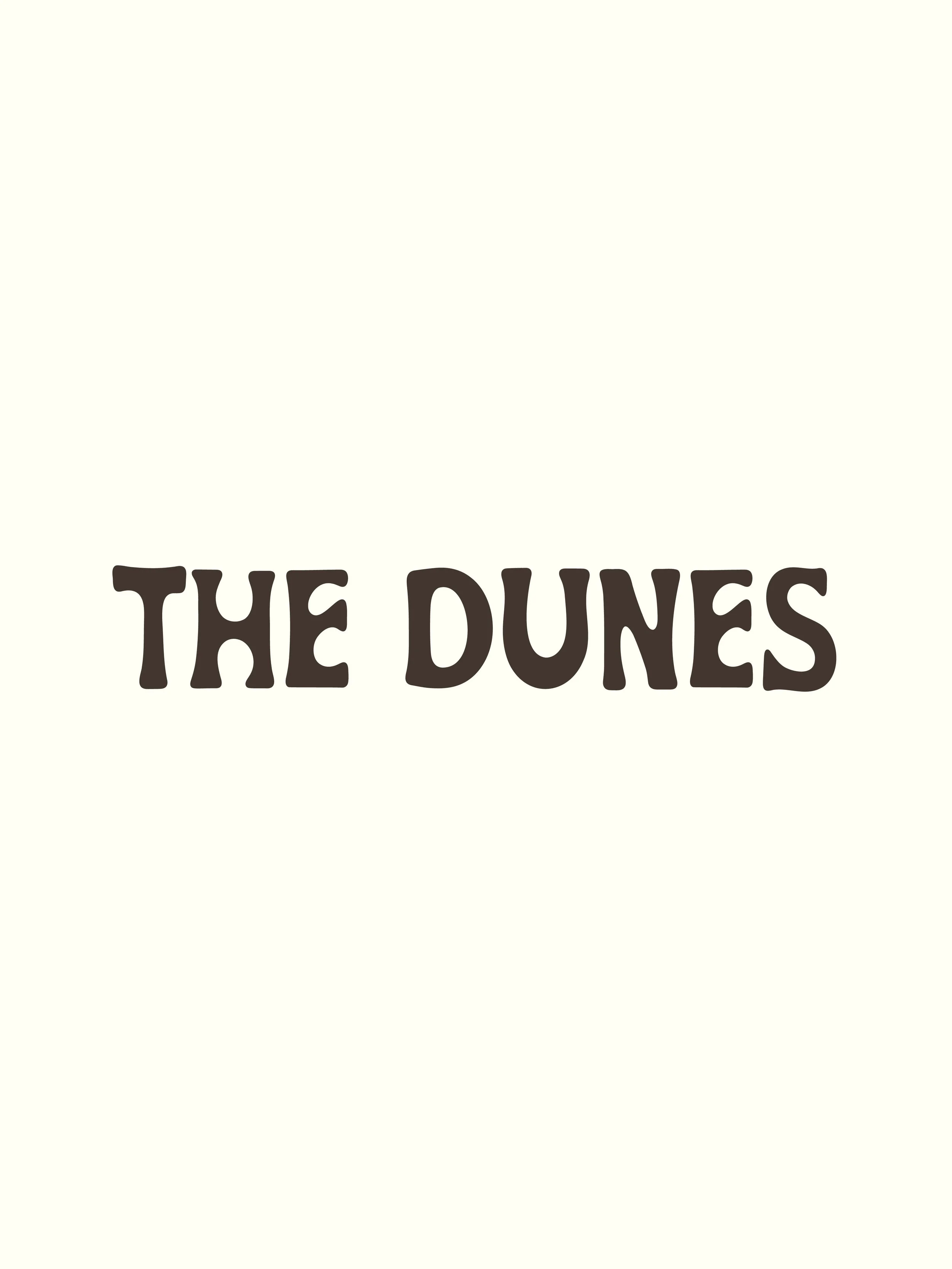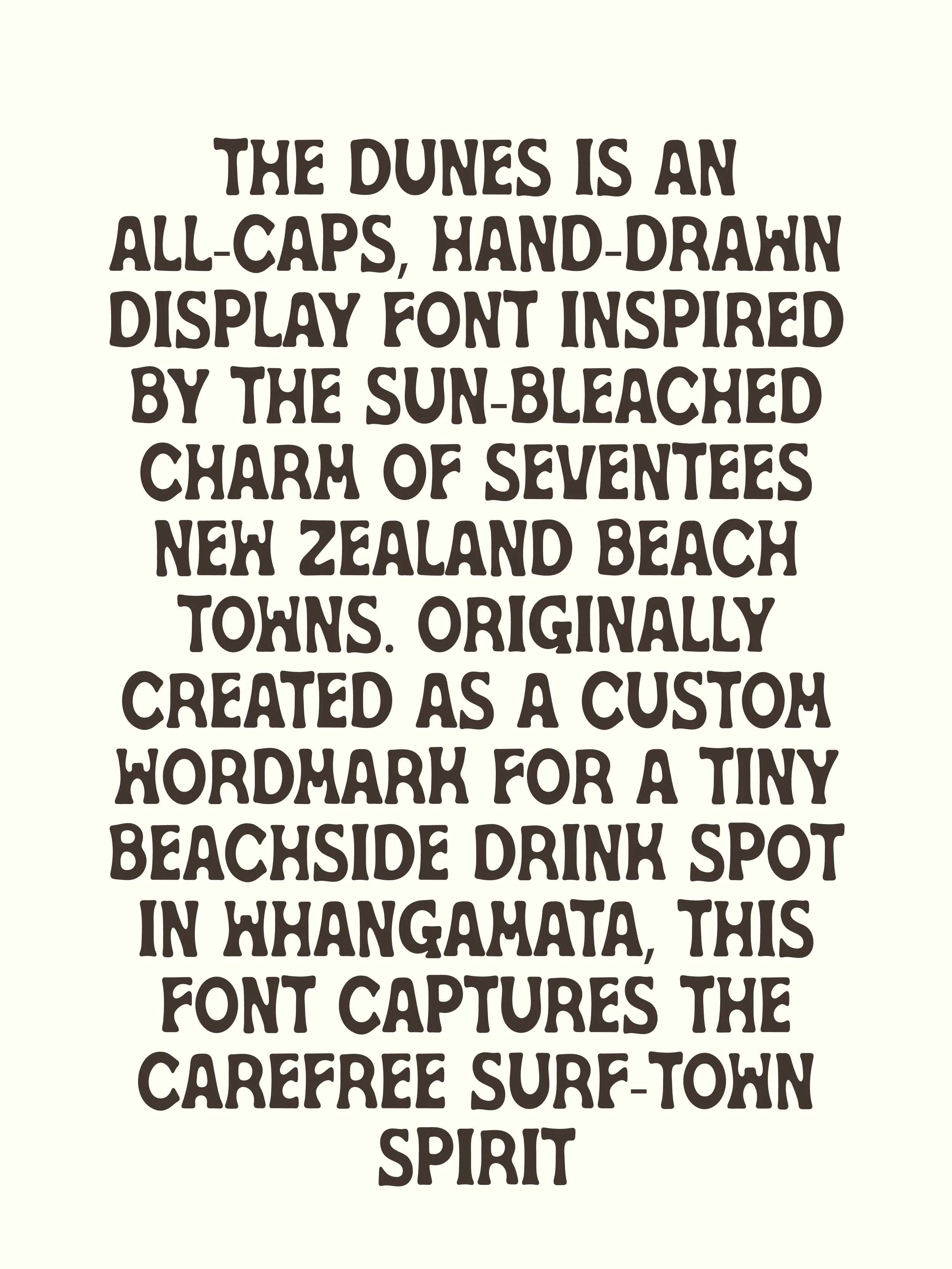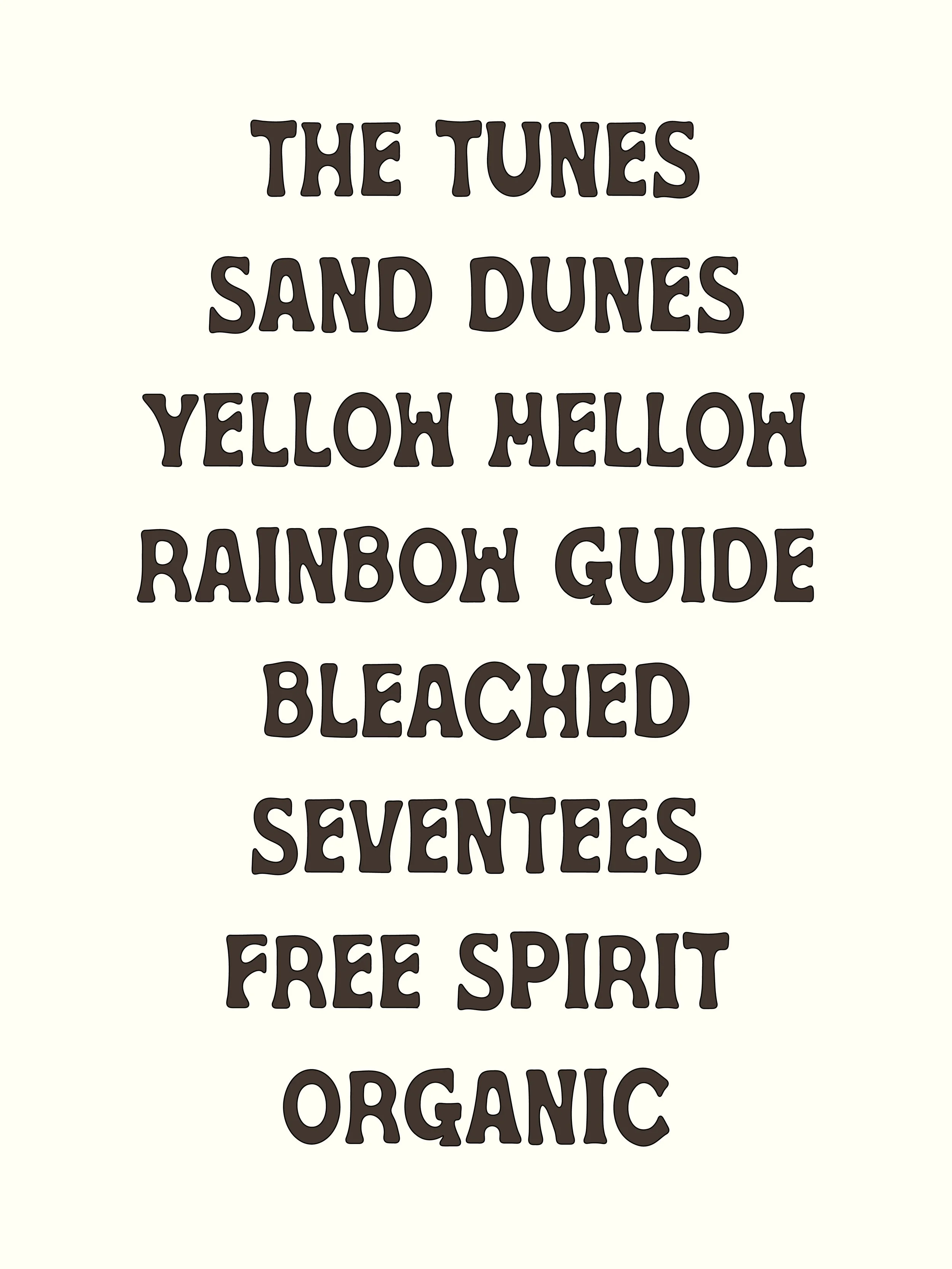
The Dunes | Hand Drawn Display Font
The Dunes is a bold, all-caps, hand-drawn font that channels the sun-faded nostalgia of 1970s New Zealand surf towns. Originally designed as a custom wordmark for a small beachside drink spot in Whangamatā, this typeface carries the carefree spirit of salty air, spinning vinyl, and hand-painted signs weathered by the sea.
With its wobbly, imperfect lines and relaxed personality, The Dunes feels equal parts coastal dive bar and summer music poster. It’s not about precision — it’s about vibe. Use it anywhere you want to bring warmth, character, and a touch of vintage imperfection.
A–Z uppercase letters only (no lowercase, numbers, or punctuation)
Display/logo-focused font — intentionally all caps
Perfect For:
Surf, beach & summer-inspired branding
Retro 70s-style record covers, gig posters, and music merch
Festival flyers, zines, and DIY design projects
Social media graphics with a relaxed, handmade touch
Organic packaging, signage, and nostalgic product labels
The Dunes captures mood over perfection — perfect for conjuring hazy road trips, endless summers, and the timeless energy of retro music culture.